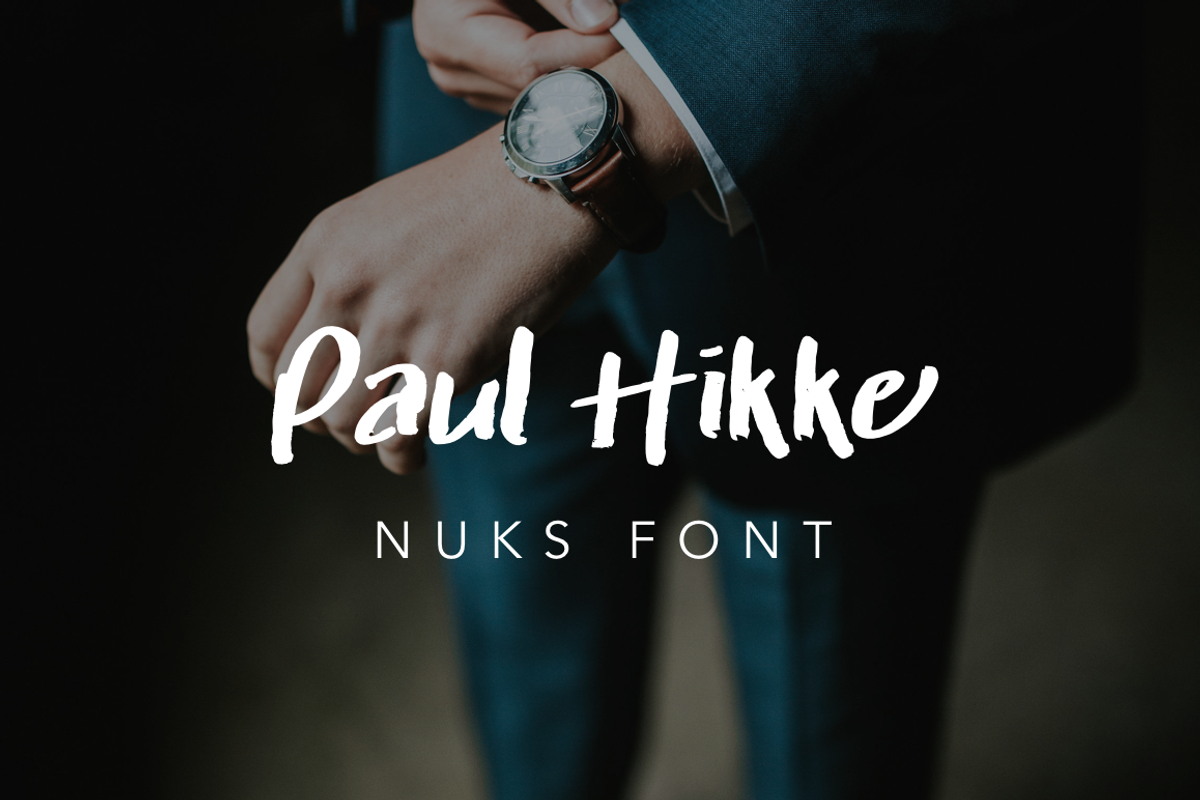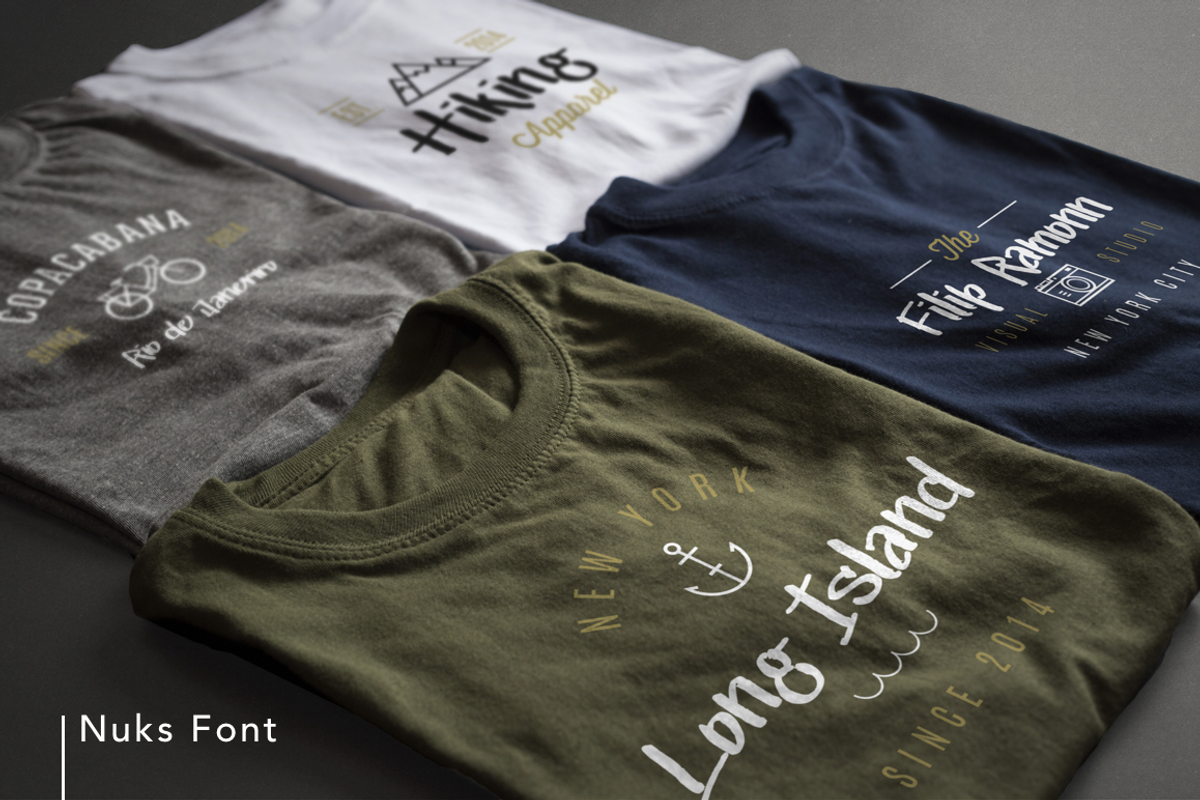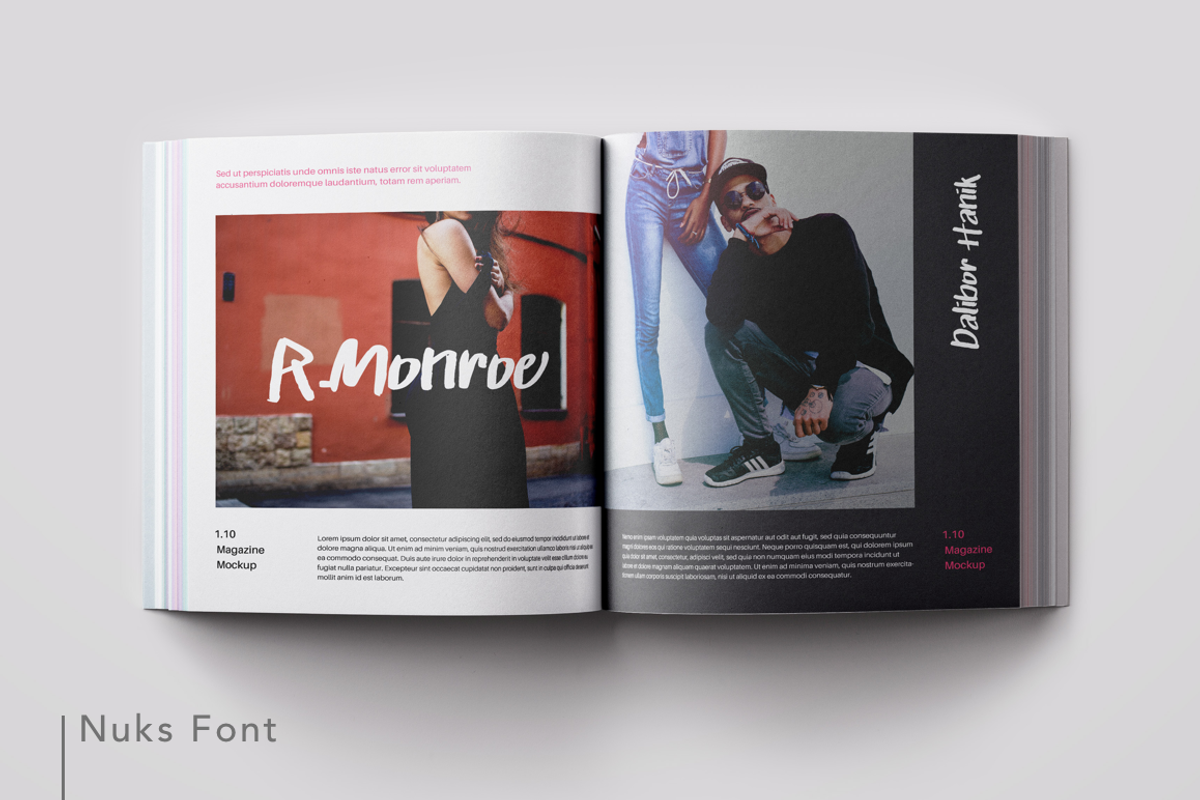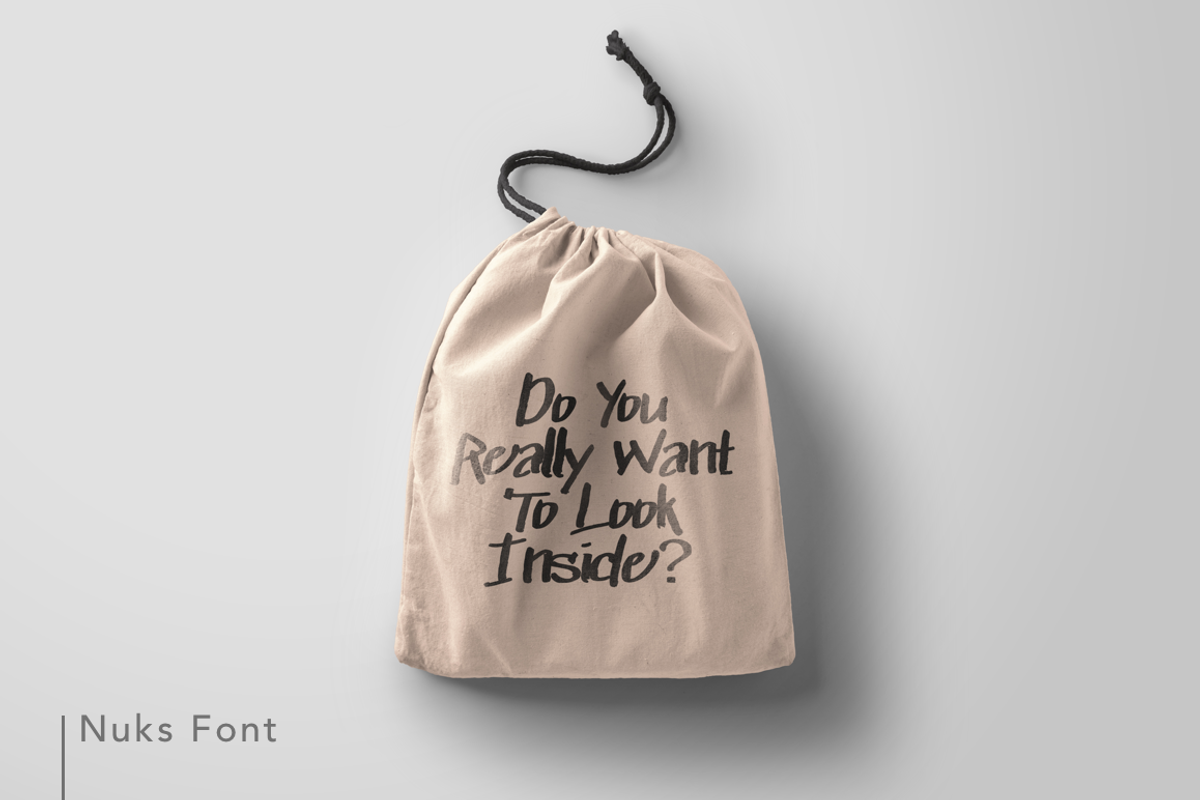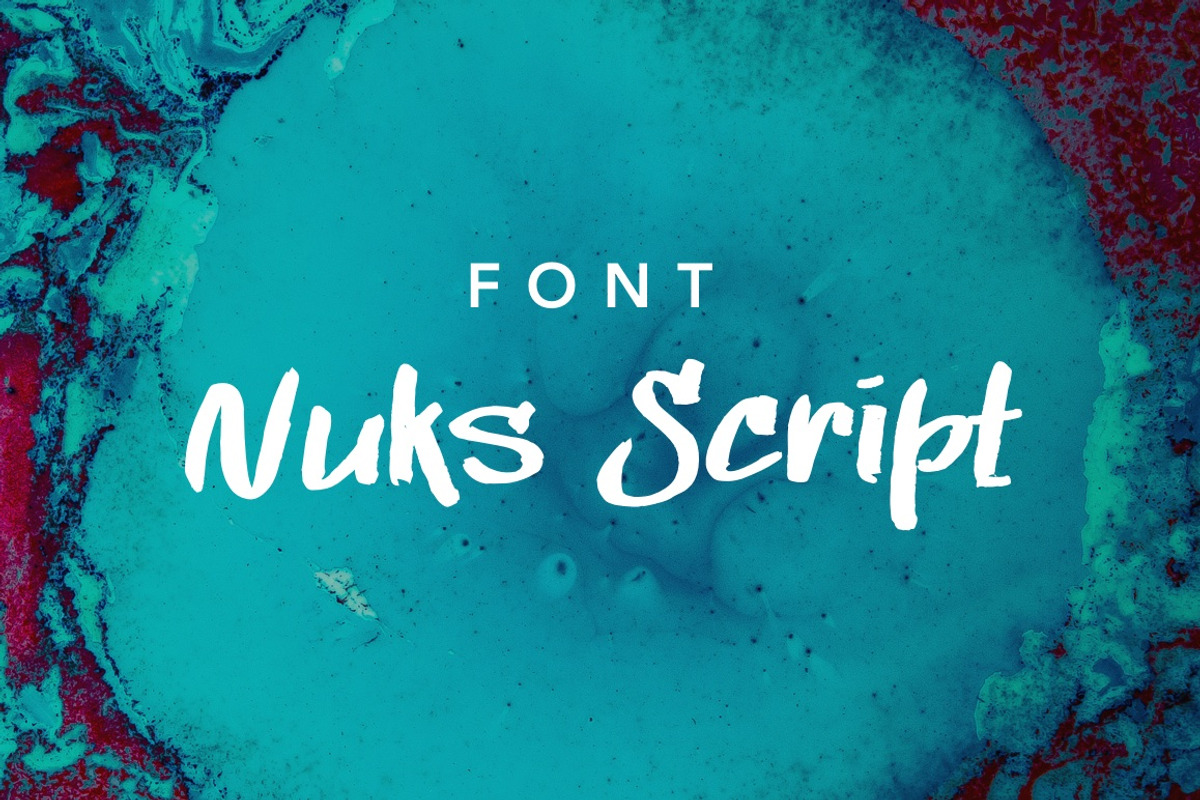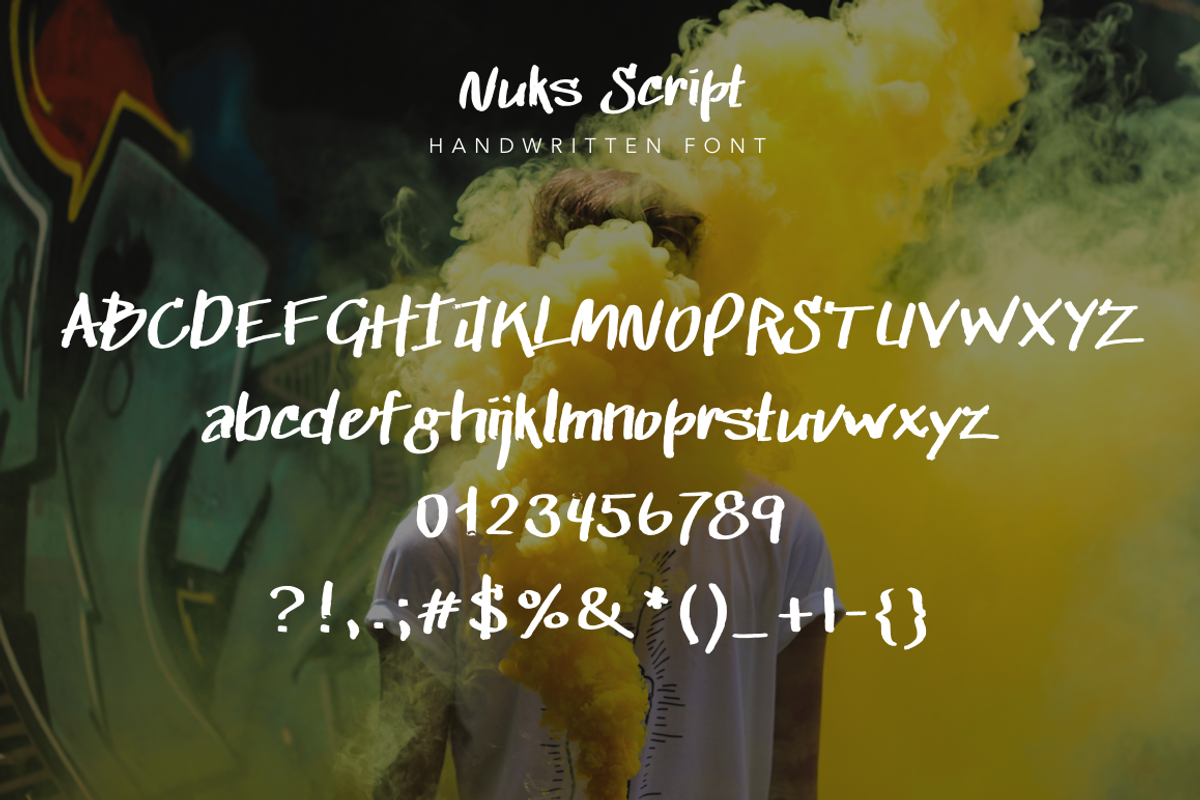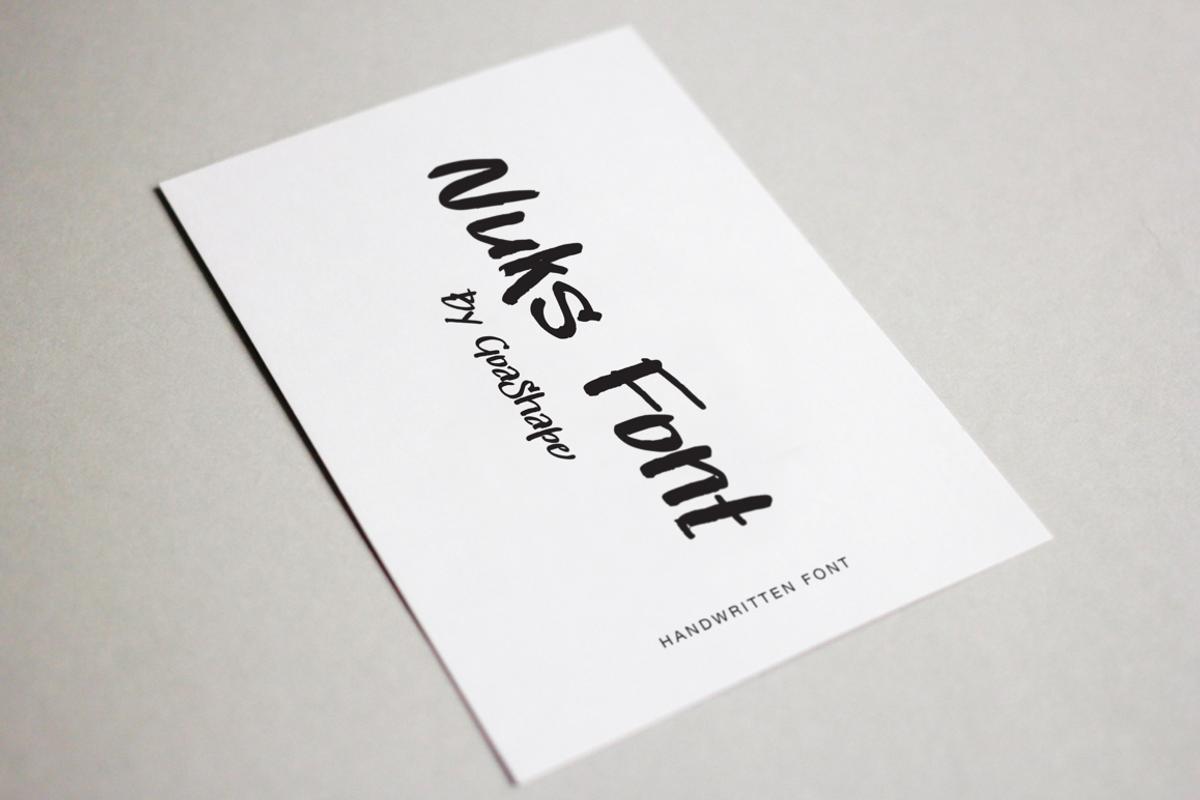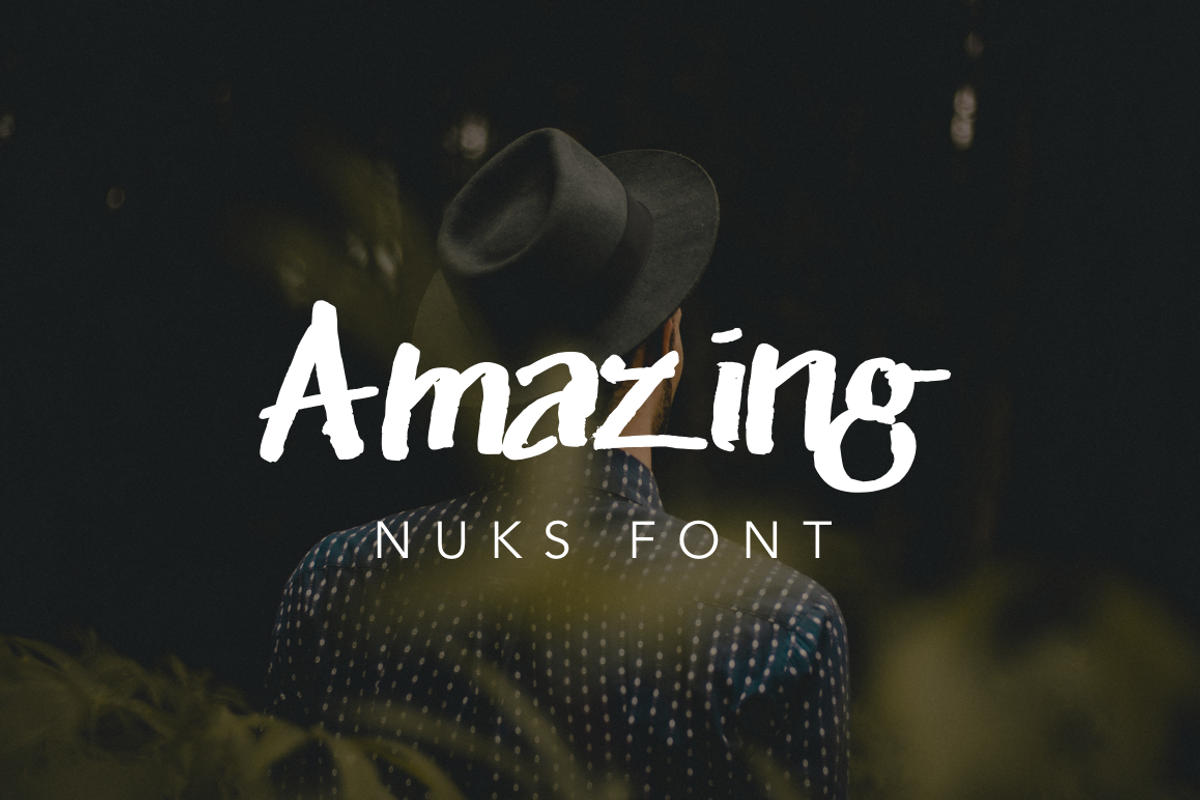
Nuks Handwritten Font Script Brush
Nuks Handwritten Font Script Brush by Goashape Studio is a font selected for branding, posters, packaging, typography.
- A handwritten script font containing upper and lowercase characters, numerals and a large range of punctuation.
Why Nuks Handwritten Font Script Brush is worth a look
Nuks Handwritten Font Script Brush by Goashape Studio fits naturally into Branding, posters, packaging, typography.